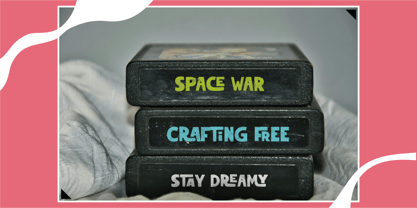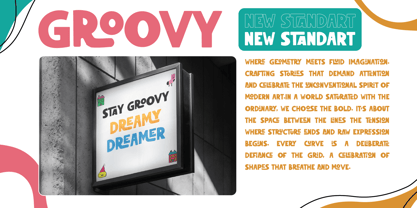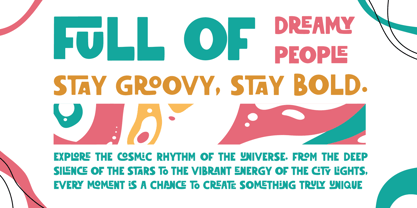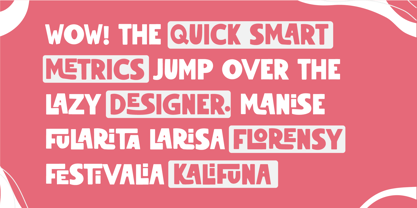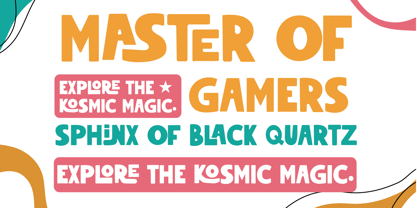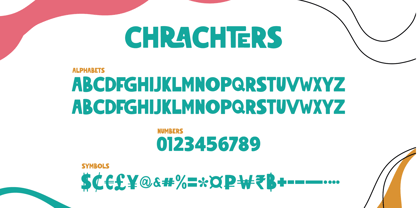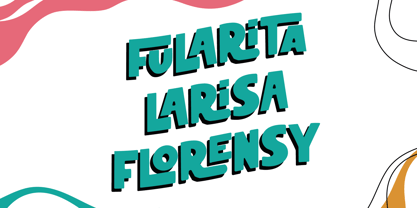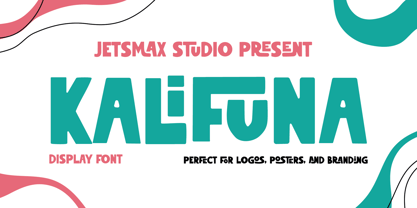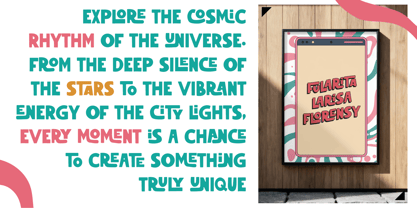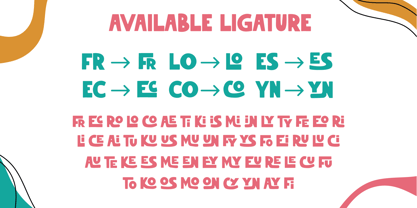
Kalifuna
by Jetsmax Studio
The Kalifuna Font Family was designed by Khairil Anwar and published by Jetsmax Studio. Kalifuna contains 1 styles. More about this family
Kalifuna is a bold, expressive display font designed to bring a rhythmic and energetic vibe to your creative projects. This typeface blends modern funky aesthetics with a unique, liquid-like flow, making it an instant eye-catcher. Unique Ligature System: With dozens of available ligatures (such as FR, LO, ES, EC, CO, YN), Kalifuna allows for tight, interlocking typography that feels organic and handcrafted.
Designers: Khairil Anwar
Foundry: Jetsmax Studio